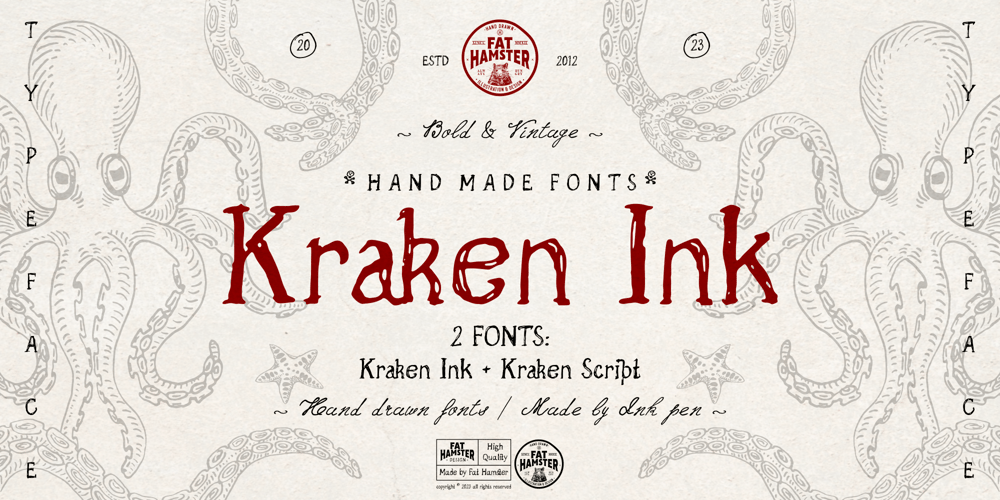
Kraken Ink
Kraken Ink font
Kraken Ink Font Family was designed by Alesia Kutsian, Aliaksei Hvozdzeu and published by Fat Hamster. Kraken Ink contains 2 styles and family package options. Kraken Ink & Kraken Script fonts were inspired by mystery of ocean and sea, their secrets and creatures. As unique, rustic, frivolous and fun as a wind! With Kraken Ink font you can give your project it’s own trendy and stylish feel. Kraken Ink typeface is perfect for your label and packaging design, social media quotes, logo and branding design, t-shirt design, heading, scrapbooking, calendars, book covers. Enjoy using the illustrations and elements in your design projects.